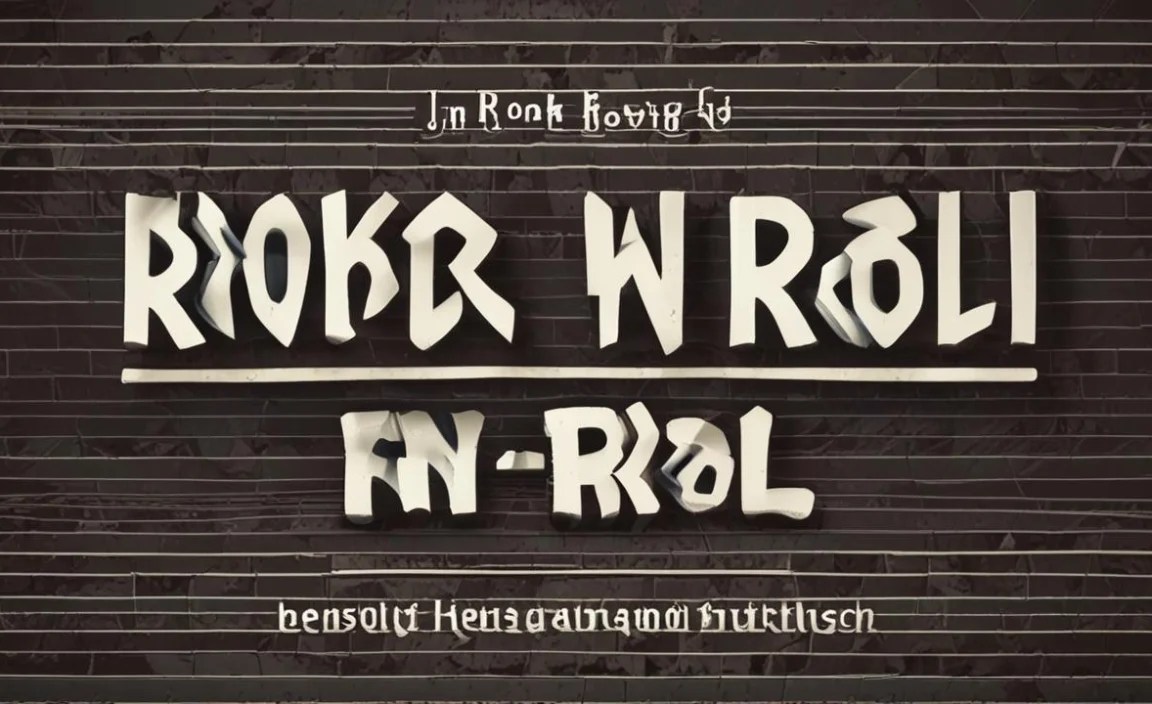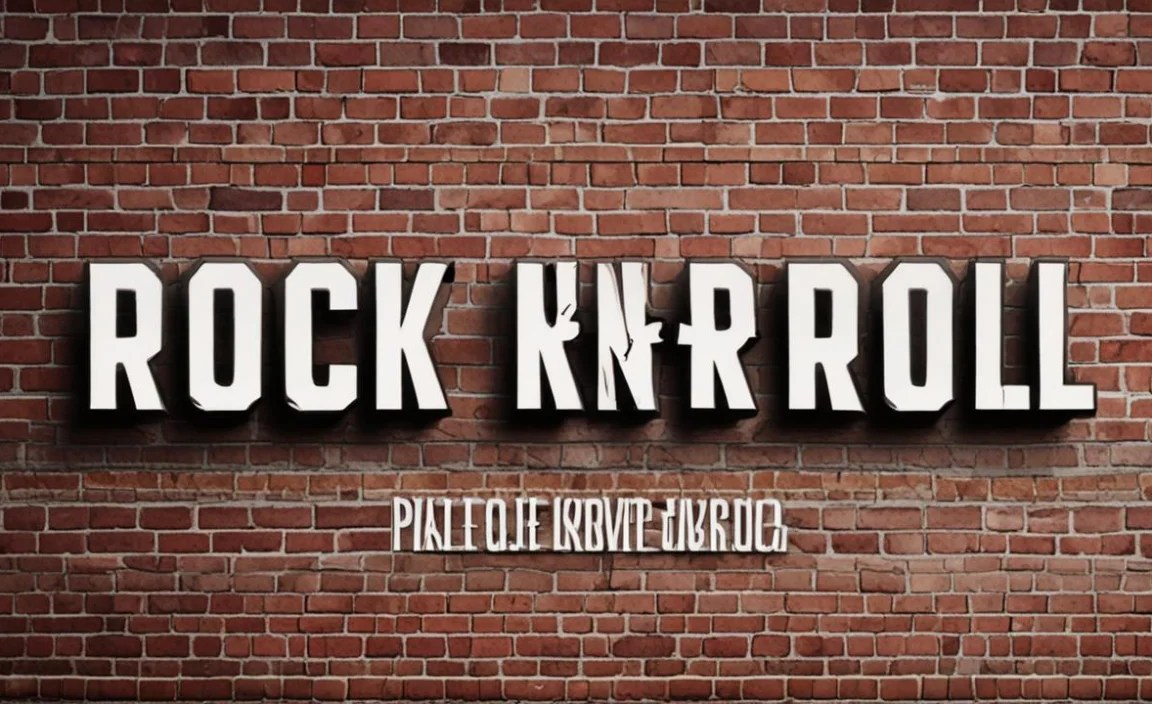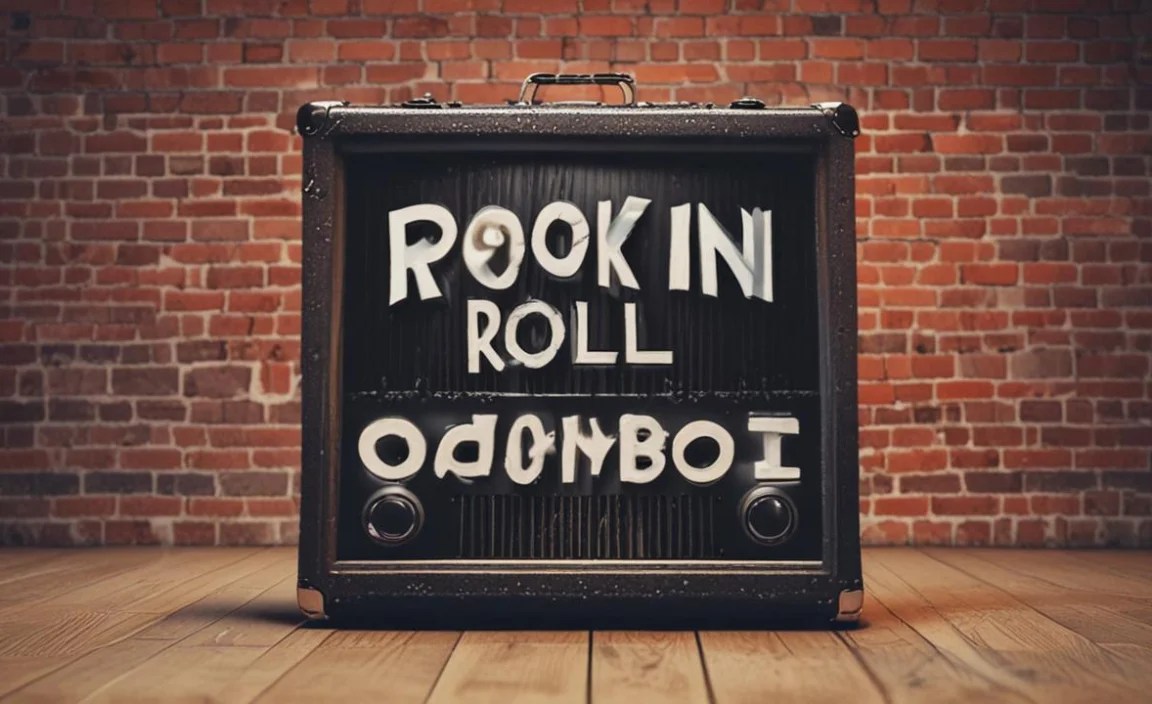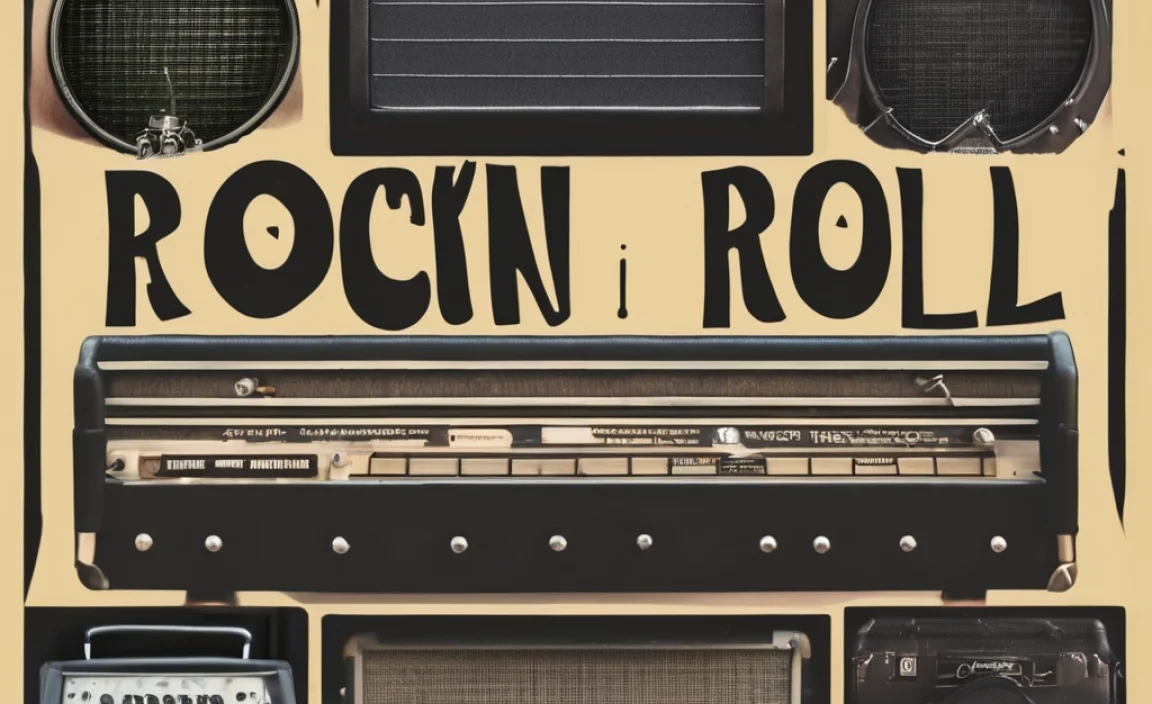
Music and design go hand in hand, and nothing captures the rebellious spirit of rock music like the right font. If you’ve ever looked at an album cover, a concert poster, or even a band t-shirt and thought, “That just looks like rock ‘n roll,” chances are, the font played a huge role. Rock’n Roll Font is designed for music lovers, musicians, and creative professionals who want their designs to scream attitude, energy, and passion.
Key Features Of Rock’n Roll Font
Every great rock anthem has a distinct sound; the same goes for typography. Rock’n Roll Font is built to stand out with sharp lines, grunge-inspired details, and a powerful aesthetic embodying rock music’s rawness. Here’s what makes it special:
- Perfect for Music Branding – This font fits right in: whether you’re designing for a punk rock band, a heavy metal album, or an indie rock festival.
- Grunge-Inspired Look – Rough edges, bold strokes, and a hand-drawn vibe give your designs an authentic, rebellious feel.
- Versatile Applications – Ideal for logos, posters, apparel, digital marketing, and more.
- Supports Special Characters – Need unique symbols or stylized text? This font includes special characters to elevate your design.
- Handmade Feel – Some font versions include a hand-painted look, reminiscent of classic rock album covers.
No matter the project, Rock’n Roll Font gives your designs unmistakable rock energy. It’s the visual equivalent of a killer guitar solo, bold, electrifying, and impossible to ignore.
Rock’n Roll Font Family Names
Like different subgenres of rock, Rock’n Roll Font comes in various styles to match the tone you want to set. Each variation brings its own unique twist, giving you flexibility in your designs:
- Rock N Roll Regular – The classic, all-purpose version with a gritty edge.
- Rock and Roll Font – A bolder, more structured take for strong branding.
- Rock Font – Simplified but impactful, ideal for digital and print projects.
- Hard Rock Font – Inspired by heavy metal and hard rock aesthetics.
- Punk Rock Typeface – Sharp, raw, and rebellious, perfect for punk-style designs.
- Grunge Rock Lettering – A distressed, vintage-inspired look with an underground feel.
- Retro Rock Script – A sleek, old-school font with a touch of nostalgia.
Each style can be mixed and matched to create a dynamic look, just like blending different musical influences to create a unique sound.
Why Choose Rock’n Roll Font?
For example, choosing the right guitar for a live show and the right font for your project must fit the mood. Rock’n Roll Font delivers in every way:
- Versatile – Whether you’re working on a music festival poster, an album cover, or a band website, this font adapts to your needs.
- Highly Readable – Even with its edgy aesthetic, this font maintains clarity, making it perfect for headlines and branding.
- Authentic Rock Aesthetic – Inspired by rock music’s history and energy, it captures the essence of rebellion and creativity.
- Ideal for Designers – A must-have for graphic designers in the music, fashion, and entertainment industries.
- Pairs Well with Other Fonts – Looks great with sans-serif or script fonts for a more dynamic look.
This font is the perfect choice if you want to give your designs a punch of rockstar charisma.
Use Rock’n Roll Fonts In Your Projects
To make an impression, Rock’n Roll Font is more than just good looks. Here are some great ways to use it:
- Music Branding – Whether for an upcoming band, a music label, or a rock festival, this font makes your brand instantly recognizable.
- Album Covers & Posters – Create visuals that match the energy of the music with bold typography.
- Apparel & Merchandise – Print on t-shirts, hoodies, and accessories to give fans something iconic to wear.
- Website & Digital Content – Use on band websites, YouTube thumbnails, and social media graphics for a cohesive visual identity.
- Advertising & Product Packaging – Add a rock-inspired edge to marketing materials and packaging.
- Tattoo Design – The bold, distressed strokes are great for text-based tattoo art.
With so many creative possibilities, this font is an essential tool for anyone in the music and design world.
Additional Creative Uses For Rock’n Roll Font
Beyond traditional music branding, Rock’n Roll Font can be a great choice for:
- Event Posters & Flyers – Promote rock-themed events, parties, or festivals with high-energy designs.
- Tattoo & Streetwear Design – The edgy, handwritten aesthetic is perfect for custom streetwear brands and tattoo artwork.
Can I Customize Rock’n Roll Font For My Design Project?
Yes! Many designers modify and adjust the font’s styling to fit their brand identity and creative vision.
Is This Font Suitable For Digital And Print Media?
Definitely! It’s optimized for digital and print applications, ensuring great results on any medium. Choosing the Rock’n Roll Font is more than just selecting a typeface; it’s a powerful statement. Whether you’re designing for a band, a brand, or just for fun, this font brings the perfect mix of attitude and style.